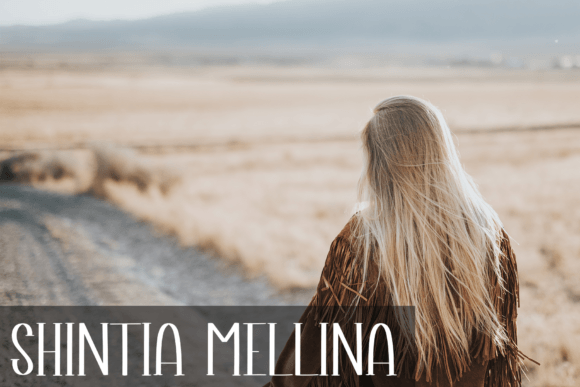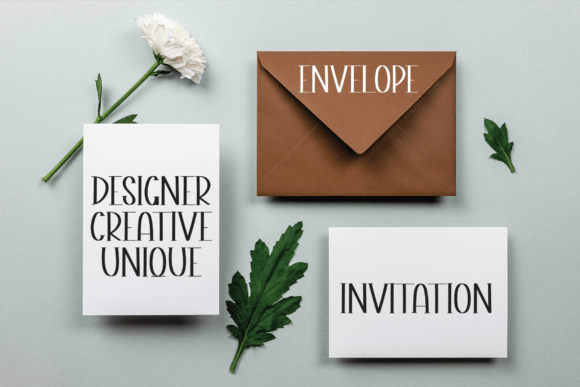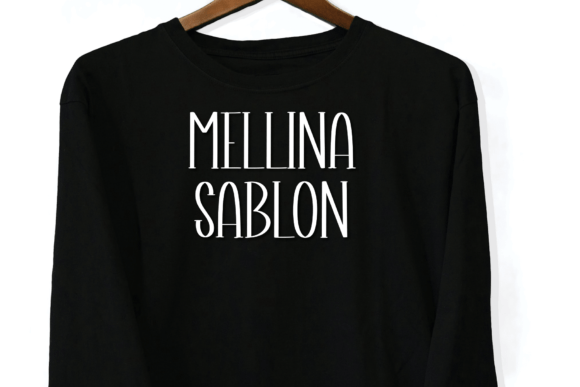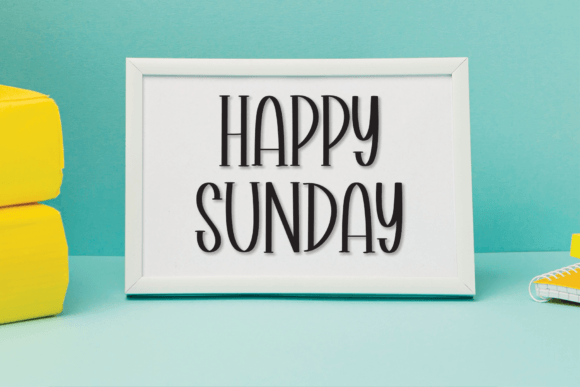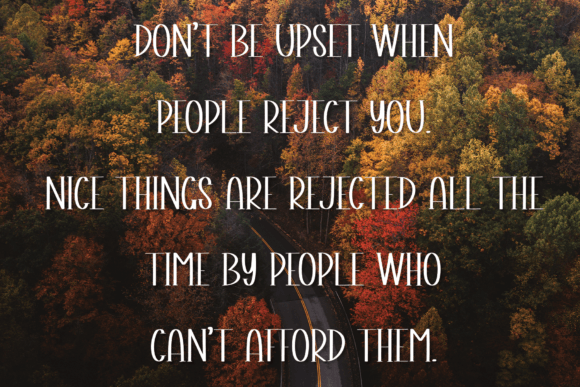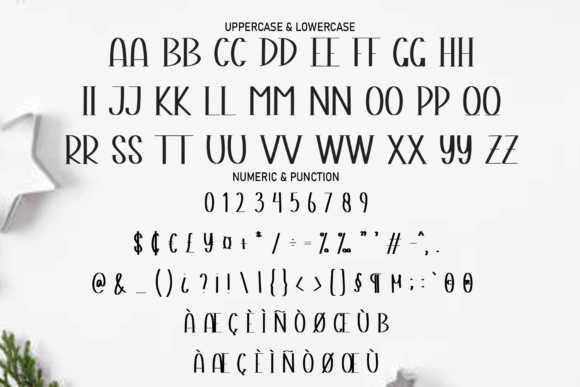
Introduction to Moment December Font
Moment December is a cool and relaxed handwritten font.
This versatile font has a wide spectrum of applications ranging from greeting cards to headlines and is guaranteed to add a neat and natural feel to your next project .